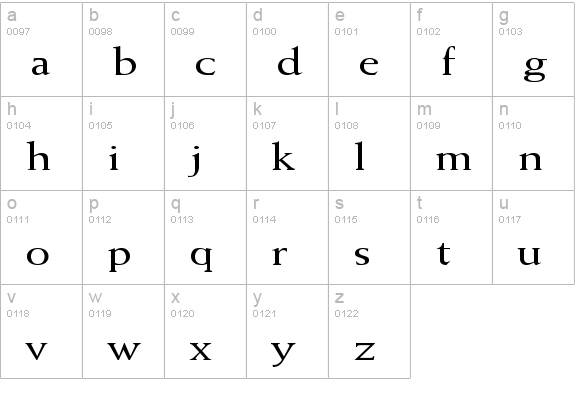
Weiss Wd Font Details
Weiss Wd font is a stunning and versatile typeface that exudes elegance and sophistication. Designed with precision and attention to detail, this font is perfect for adding a touch of class to any project. With its clean and modern lines, Weiss Wd font is ideal for a wide range of design applications, from branding and advertising to packaging and editorial design. Its timeless appeal makes it suitable for both professional and personal projects. One of the best things about Weiss Wd font is that it is available for free. You can easily download this font from FontsMarket.com, a trusted source for high-quality fonts. Whether you are a designer looking to enhance your creative arsenal or a hobbyist wanting to explore new typography options, Weiss Wd font is a must-have. The versatility of Weiss Wd font truly shines through in its various weights and styles. From bold and impactful to delicate and refined, this font offers endless possibilities for creating captivating designs. Its legibility and readability also make it perfect for both print and digital media. Weiss Wd font's character set includes uppercase and lowercase letters, numbers, punctuation marks, and special characters. This comprehensive range ensures that you have everything you need to bring your vision to life. Whether you're designing a logo, a website, or a poster, Weiss Wd font will add a touch of sophistication and professionalism to your project. Its timeless beauty and accessibility make it a valuable addition to any designer's toolkit. So why wait? Download Weiss Wd font for free today from FontsMarket.com and experience the versatility and elegance it has to offer. Elevate your designs and make a lasting impression with this remarkable typeface.